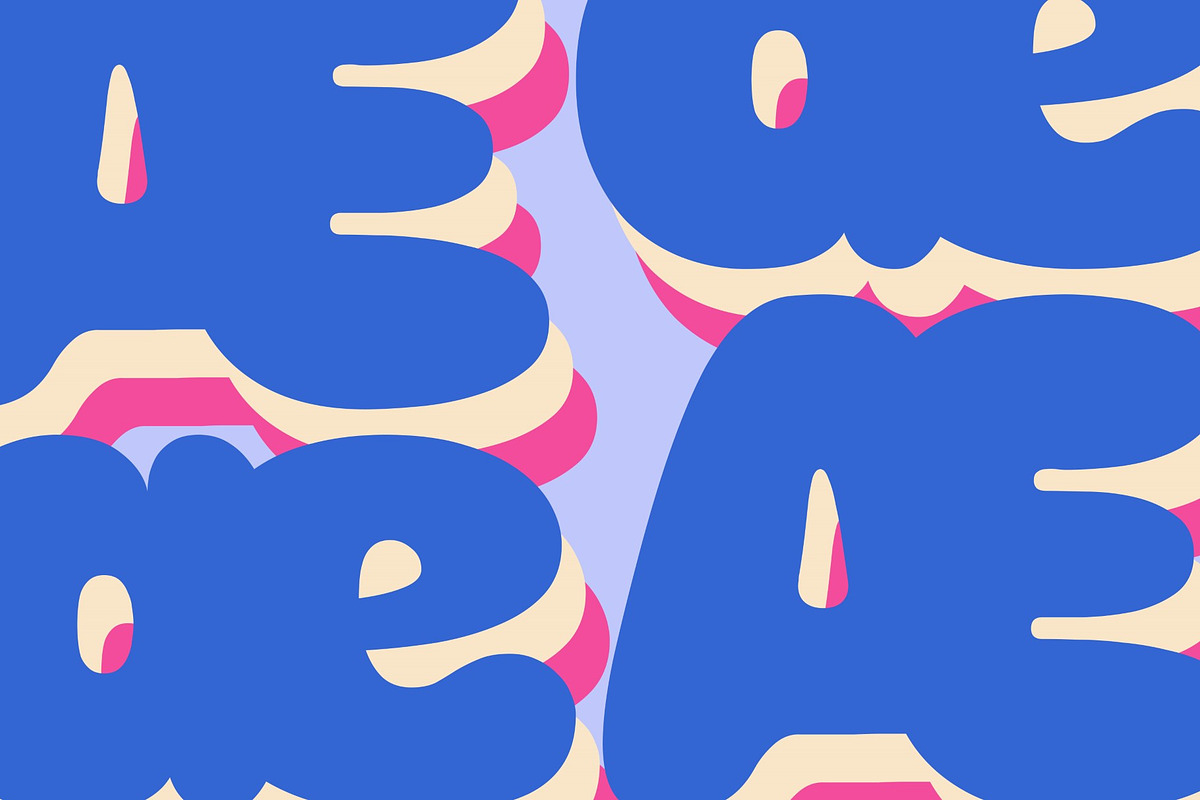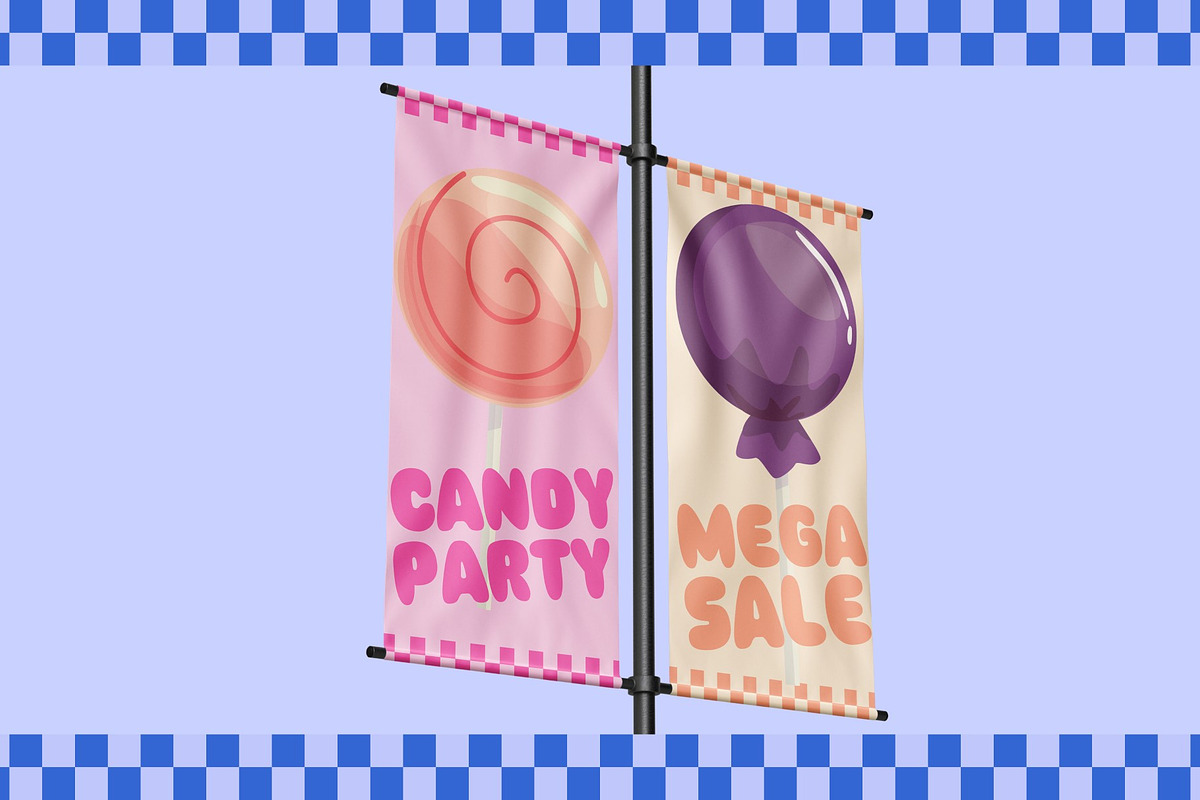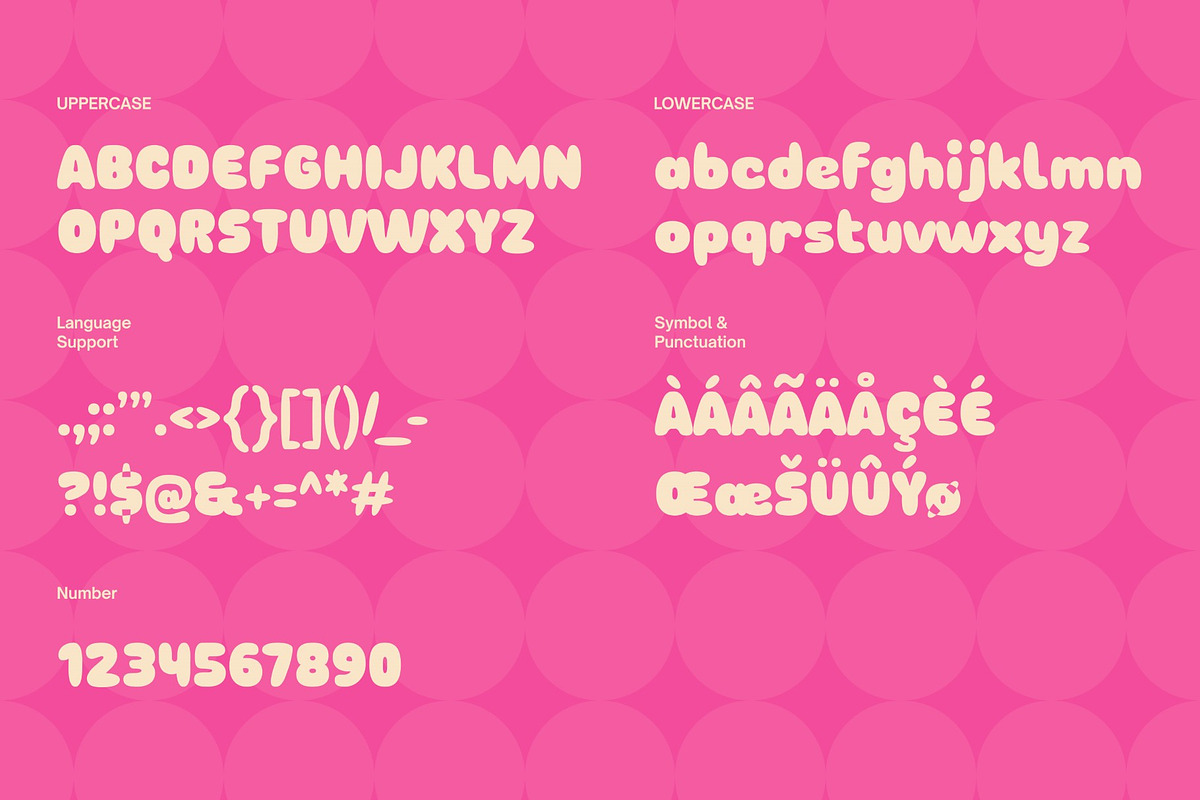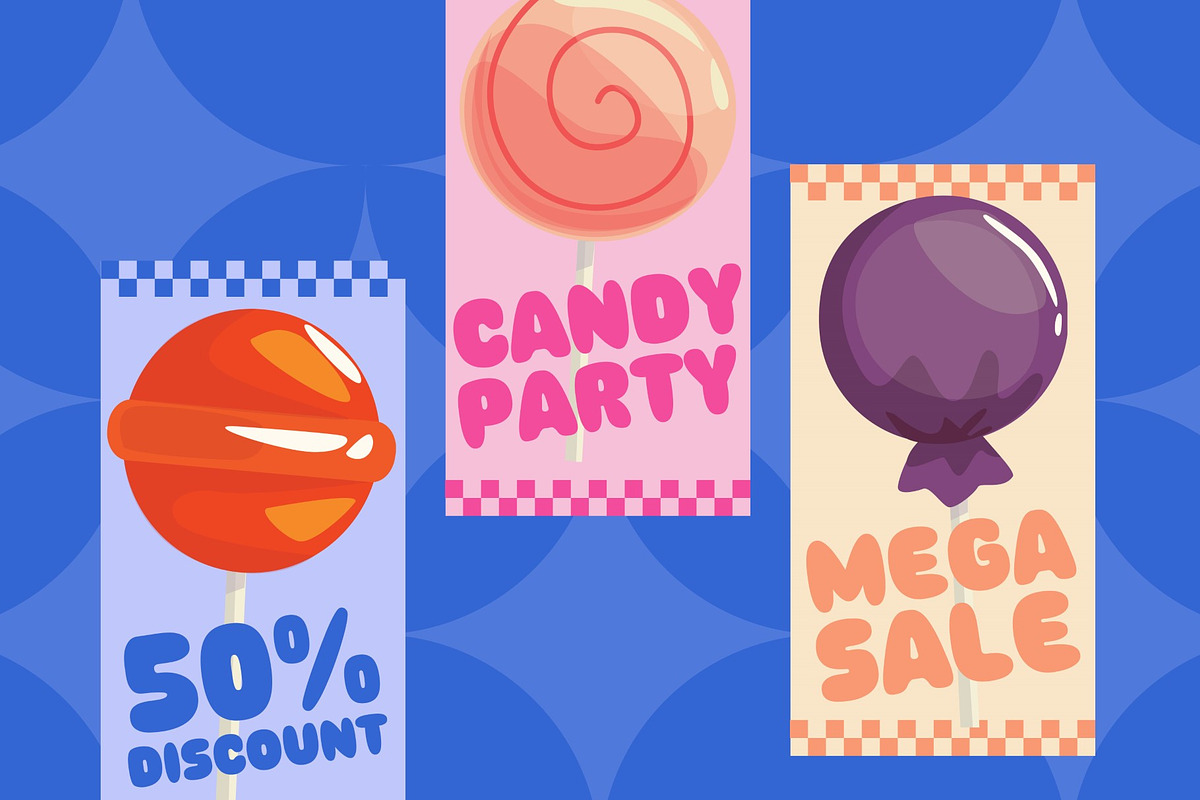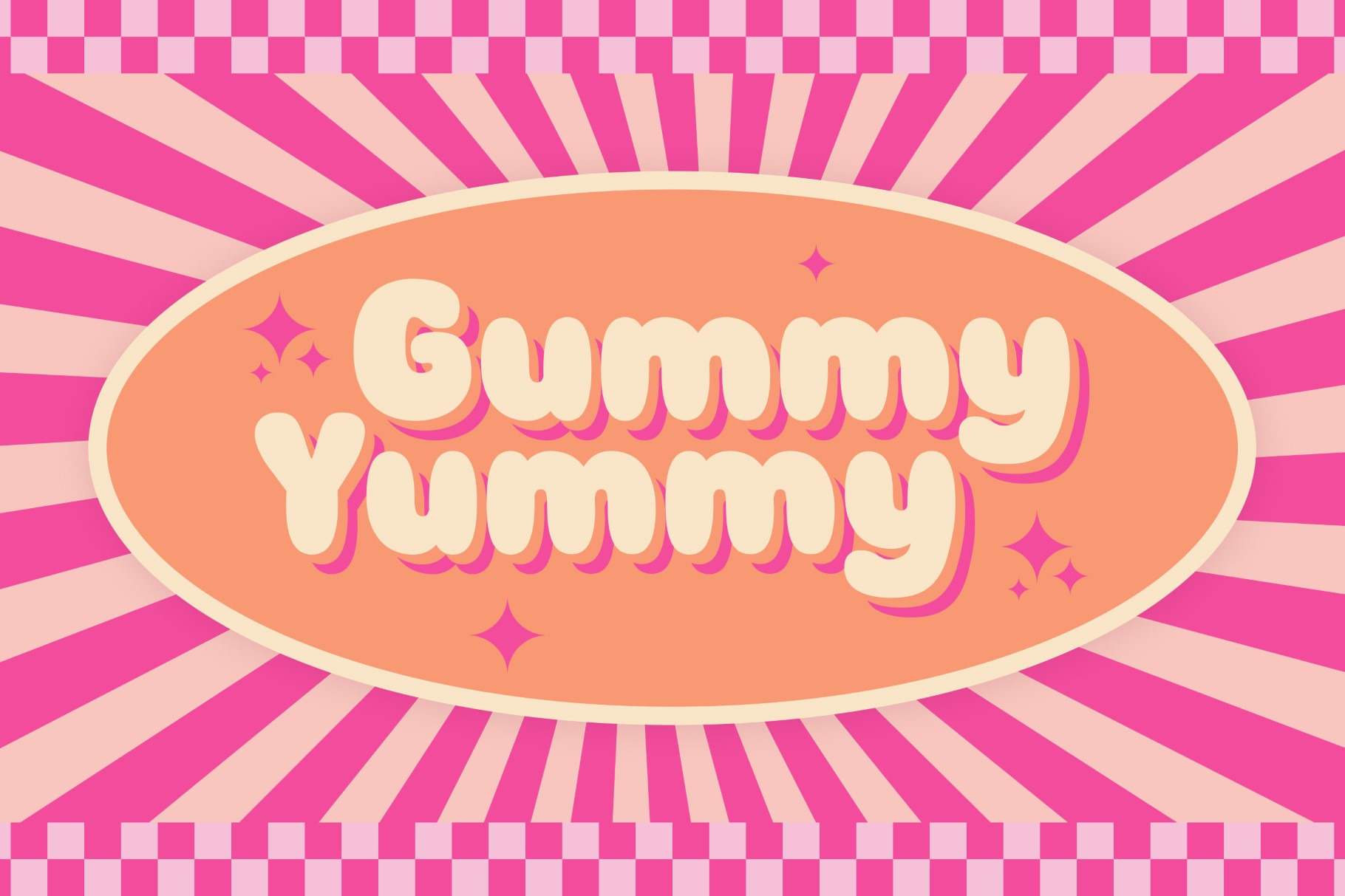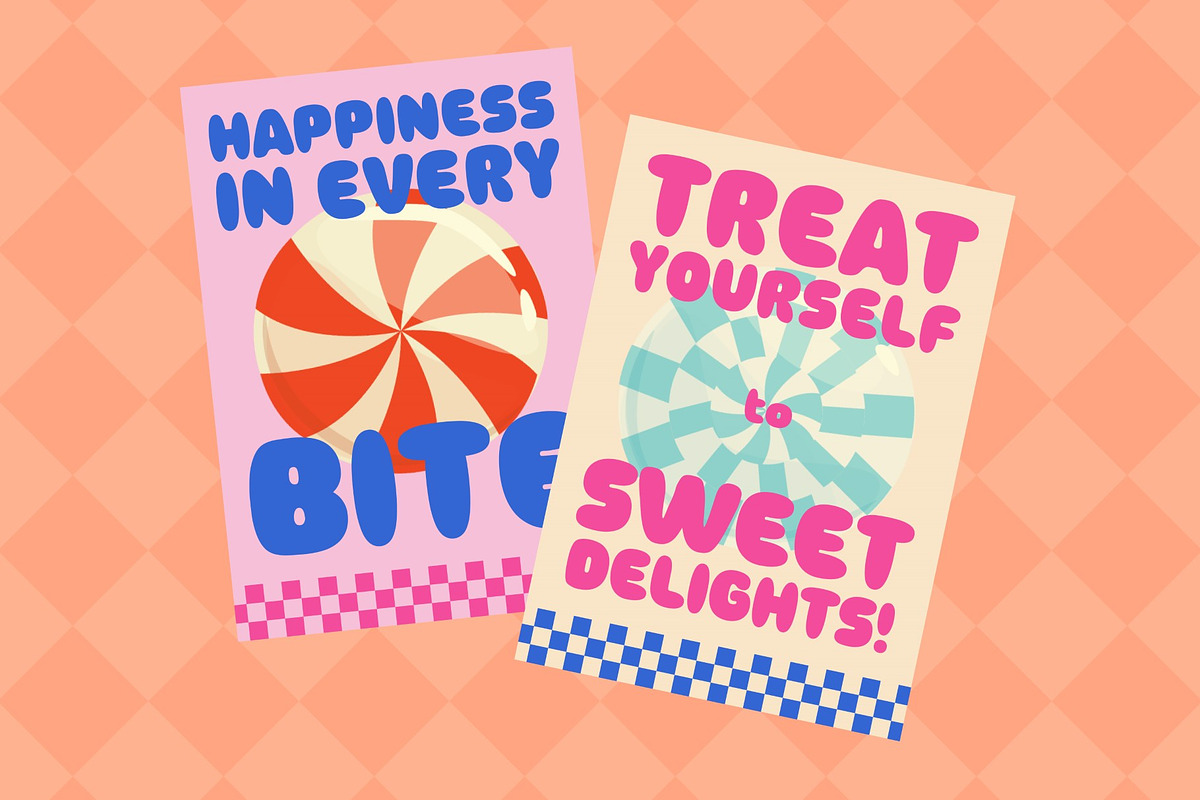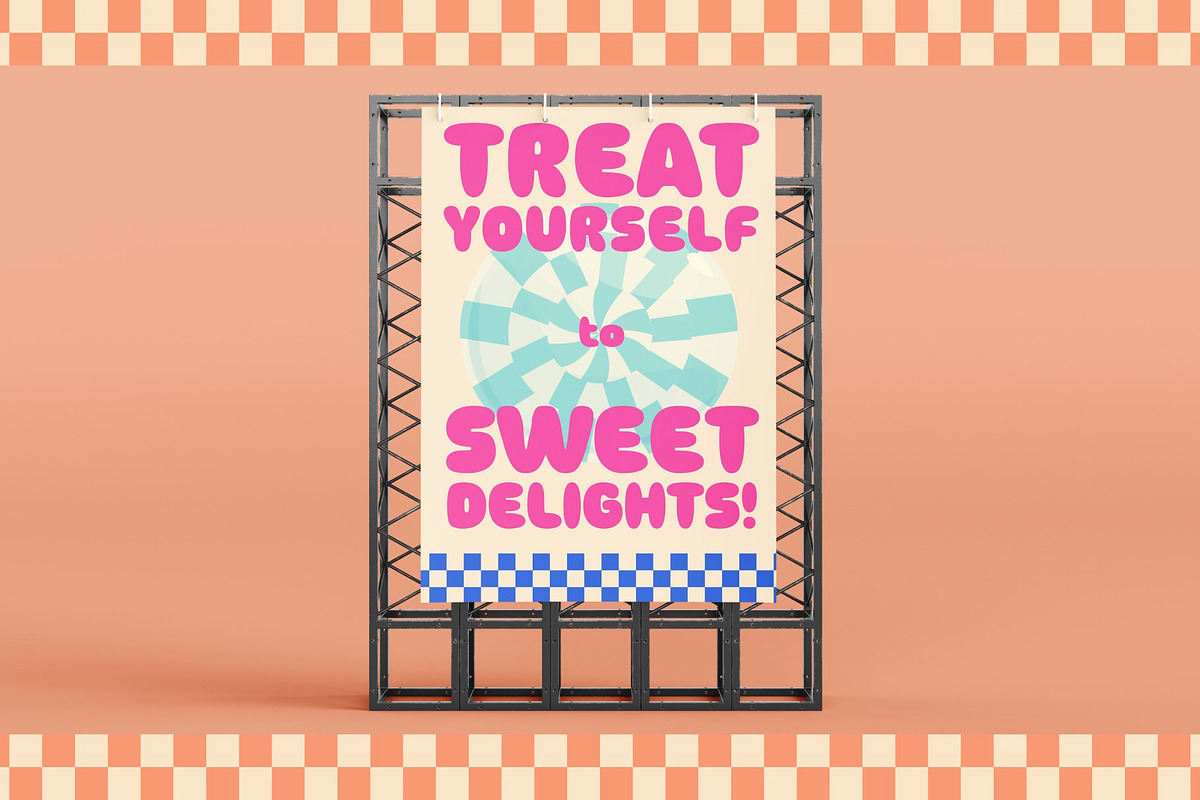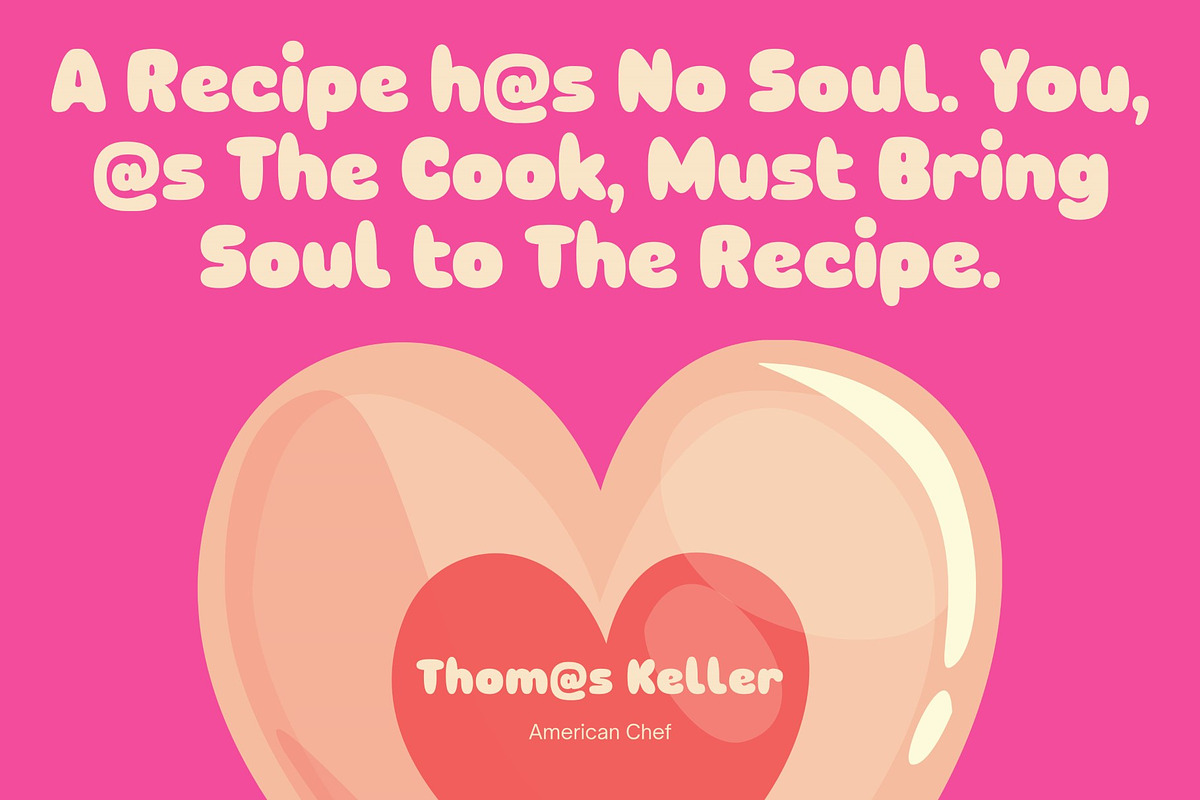
Gummy Yummy - Playful Display Font
Unleash the sweetness of creativity with Gummy Yummy, our irresistible playful display font. Infused with whimsy and charm, this font transforms ordinary designs into vibrant works of art. Gummy Yummy is perfect for adding a playful touch to children's books, candy packaging, and whimsical branding. The delightful characters and unique design make every project a treat for the eyes. Embrace the joy of creativity and let Gummy Yummy be the delectable choice for your next design adventure !